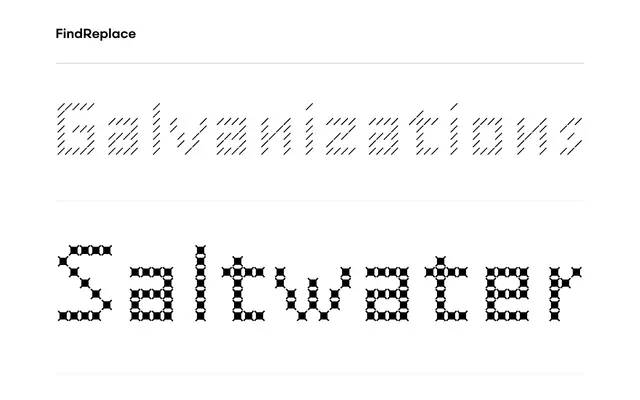
FindReplace
Process Type Foundry · Eric Olson · 2004
A six-weight display family built on a single structural conceit: each weight replaces its core line with a progressively thicker version, enabling layering and gradation effects.
Designed by Eric Olson and released in 2004, FindReplace uses a systematic substitution method where a single line is thickened incrementally across six weights, all sharing identical metrics and kerning. That shared metric structure means the weights can be layered directly over one another for colour and depth effects without any realignment. OpenType features include old style numerals, ornaments and stylistic alternates.
FindReplace is built on a single-line replacement concept where progressively thicker strokes replace one another across six weights, resulting in unconventional stroke structures that place it firmly in experimental or display territory rather than conventional text type.